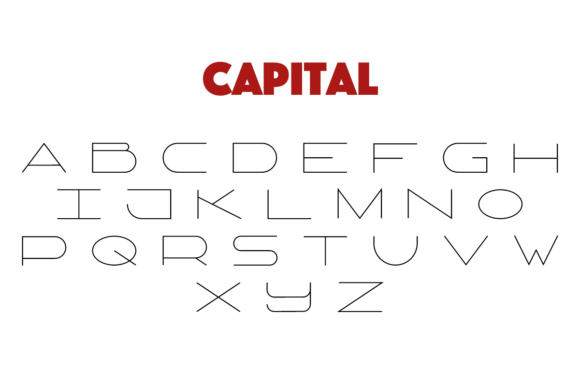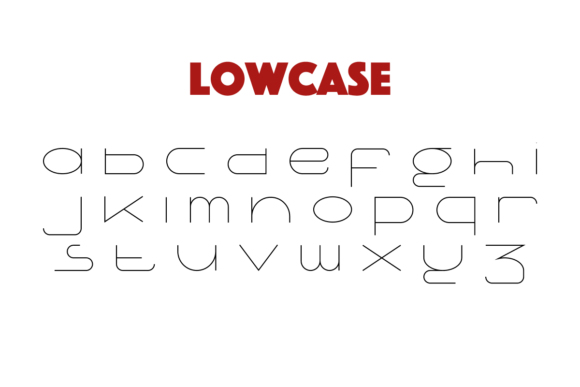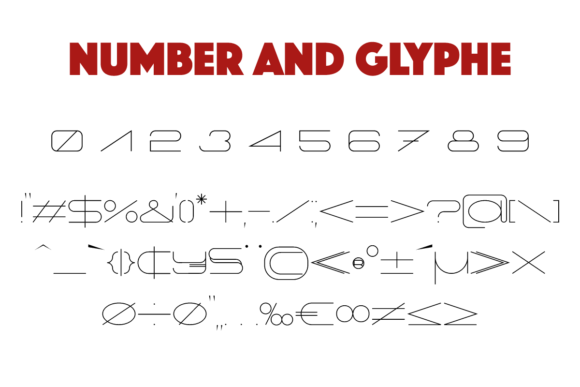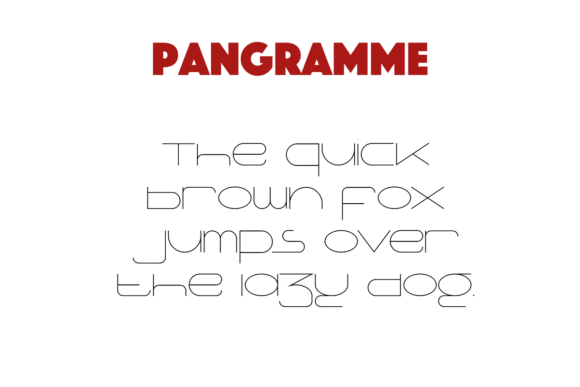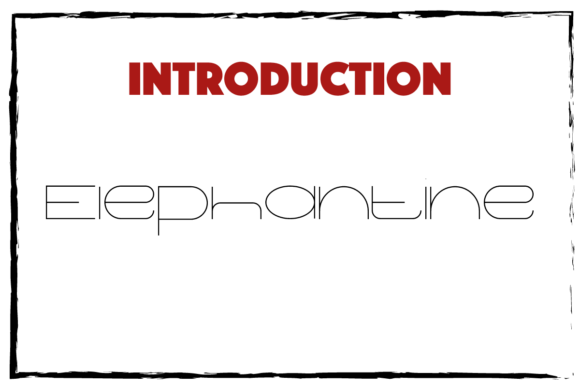
Discover the Unique Charm of Elephantine Font: A Modern Design Essential
In the vast and ever-evolving world of typography, fonts come and go, each with its own distinct character and charm. Among the myriad of typefaces that have emerged over the years, the Elephantine font stands out for its refreshing and unique approach to design. Unlike its contemporaries, which often rely on verticality to make an impact, Elephantine breaks the mold by focusing on width, offering a novel aesthetic that is both captivating and versatile.
The Design Philosophy Behind Elephantine
Elephantine’s design philosophy is built on the premise of width rather than height, a departure from the conventional emphasis on verticality. This distinctive approach gives Elephantine a sprawling, expansive feel that is not only visually appealing but also highly functional. The font’s creator aimed to craft a typeface that would offer a new, refreshing, and unique touch to the world of typography, and in doing so, has produced a font that is both modern and distinctive.
A Diverse Character Set: The Heart of Elephantine
One of the standout features of the Elephantine font is its diverse and comprehensive character set. Boasting an impressive 184 characters, Elephantine includes 58 uppercase letters, of which 23 are accented, and 62 lowercase letters, also accompanied by 23 accented letters. This extensive range allows designers to explore a wide array of typographic possibilities, making Elephantine an incredibly versatile tool for various design projects.
Ideal for Modern Productions
Elephantine is more than just a font; it’s an aid to creativity, designed to help your work stand out in a crowded design landscape. Its unique characteristics make it an ideal choice for contemporary and modern print, digital, and web productions. Whether you’re working on a branding project, a website, or a print publication, Elephantine brings a touch of originality and modernity that can elevate your design to new heights.
Transforming the Ordinary into the Extraordinary
The true power of Elephantine lies in its ability to transform the ordinary into something atypical and unique. By incorporating Elephantine into your design projects, you’re not just choosing a font; you’re embracing an experience. The Elephantine experience is about pushing the boundaries of conventional design, experimenting with new typographic possibilities, and creating something truly distinctive.
Why Designers and Crafters Love Elephantine
Designers and crafters around the world have fallen in love with Elephantine for its unique blend of style, versatility, and functionality. Here are a few reasons why:
- Unique Aesthetic: Elephantine’s focus on width rather than verticality offers a fresh alternative to traditional typefaces.
- Versatility: With 184 characters at your disposal, Elephantine can be used across a wide range of projects, from print and digital to web and beyond.
- Modern Appeal: Its contemporary design makes it perfect for projects that demand a modern edge.
- Originality: Elephantine helps your work stand out with a touch of originality and modernity.
In conclusion, the Elephantine font represents a significant leap forward in typographic design, offering a unique blend of style, versatility, and modernity. Its distinctive approach to width, extensive character set, and wide range of applications make it an invaluable asset for designers and crafters looking to push the boundaries of creativity. By choosing Elephantine, you’re not just selecting a font; you’re embracing a design philosophy that celebrates originality and innovation. Live the Elephantine experience and discover a new world of typographic possibilities.